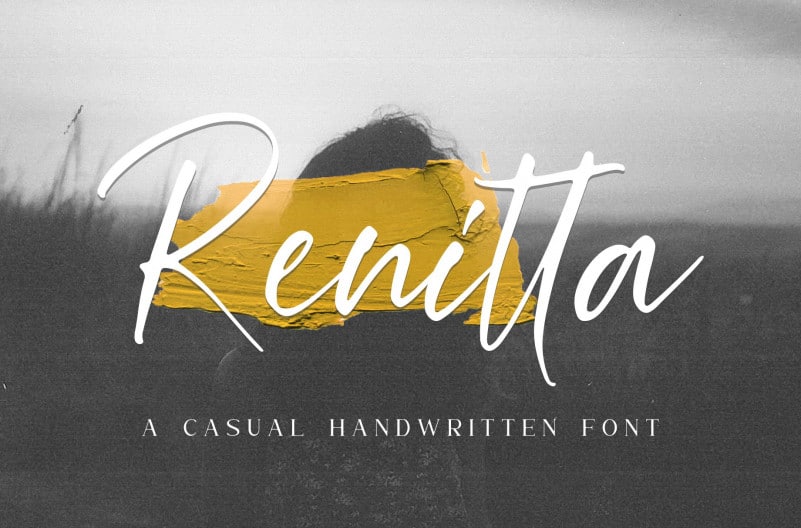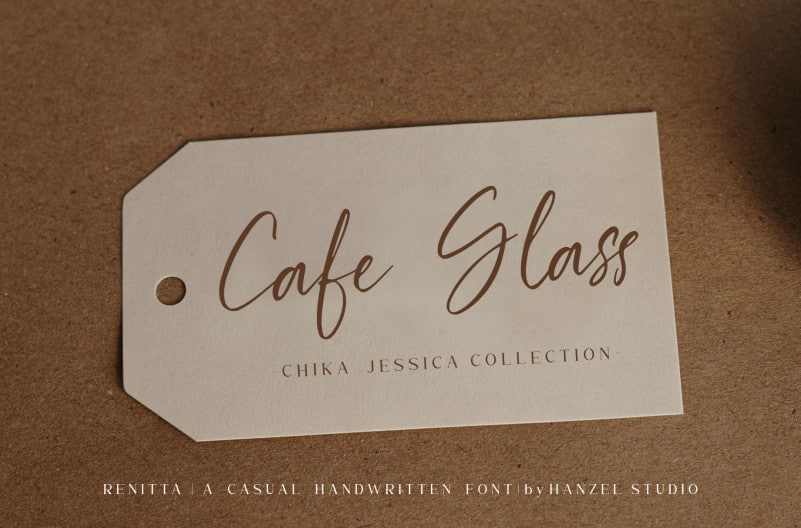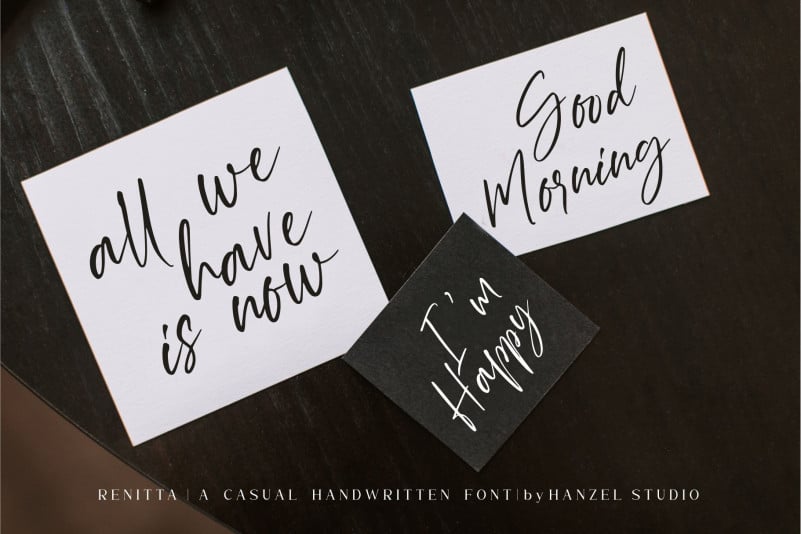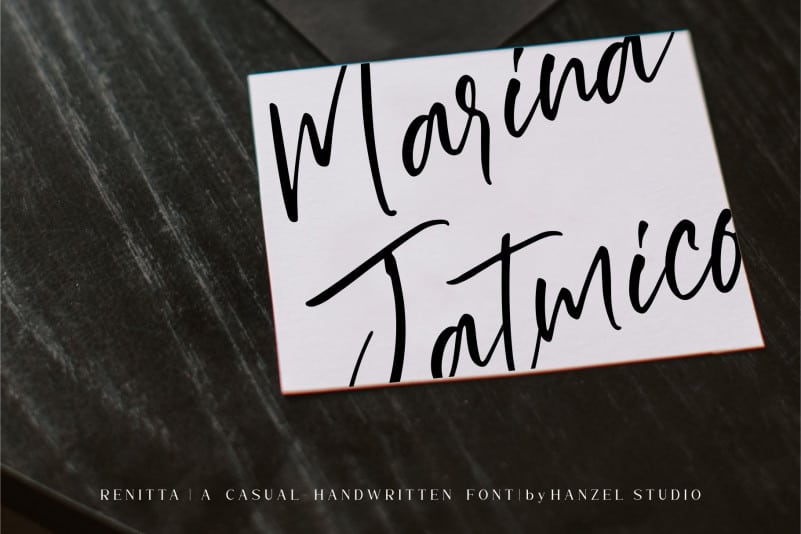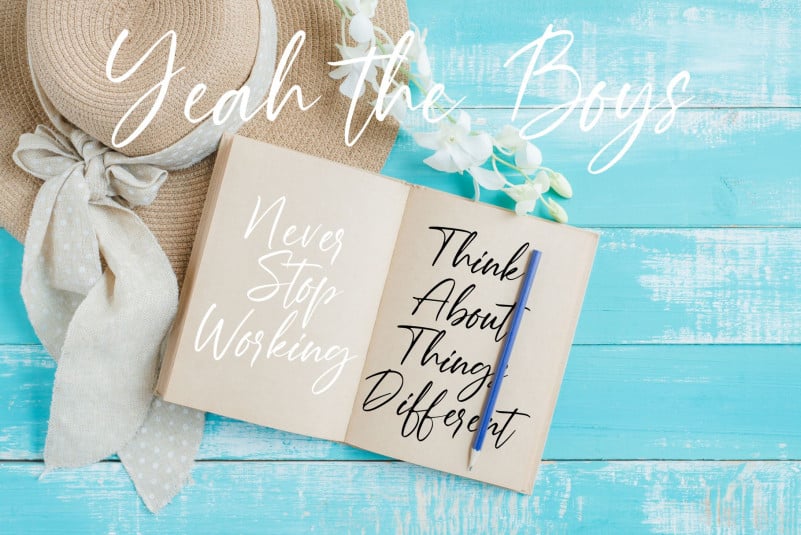
Renitta Handwritten Font
Renitta Handwritten Font. Made from natural pen.
it will make your design project more beautiful.
The font is suitable for any design like branding, fashion,
print template, quotes, wedding and etc.